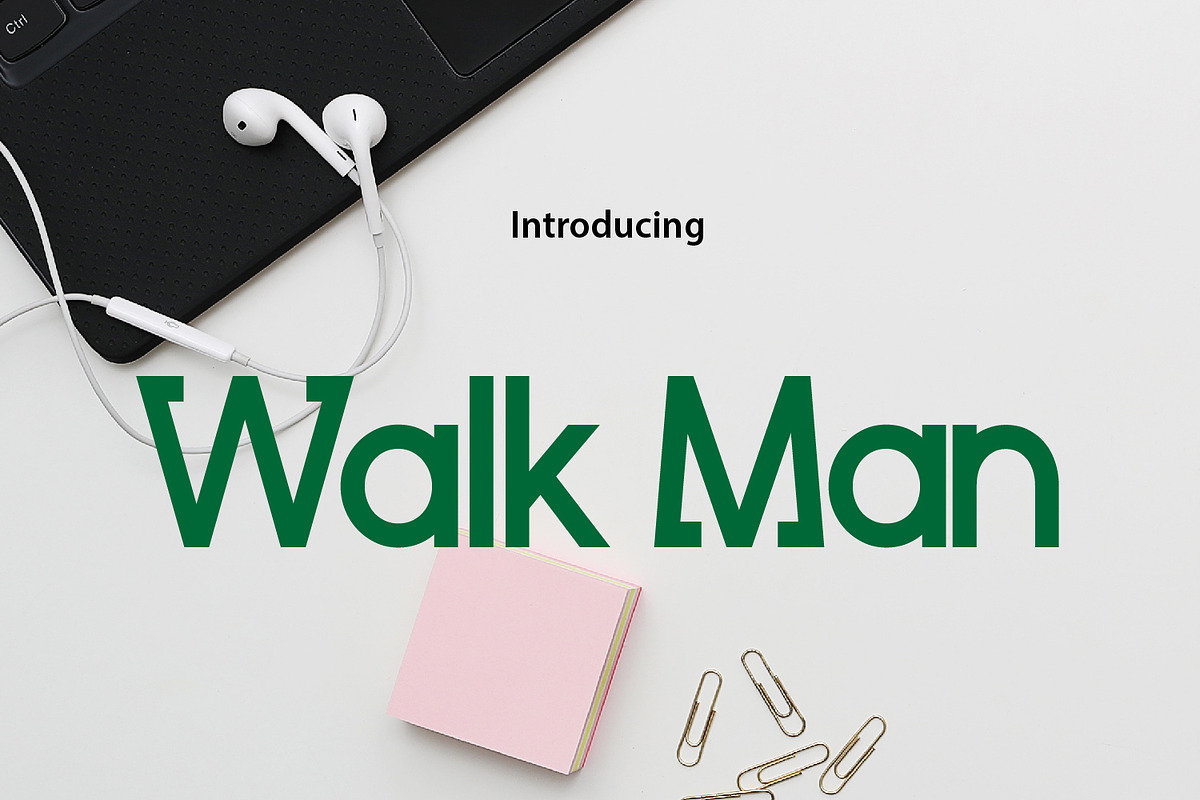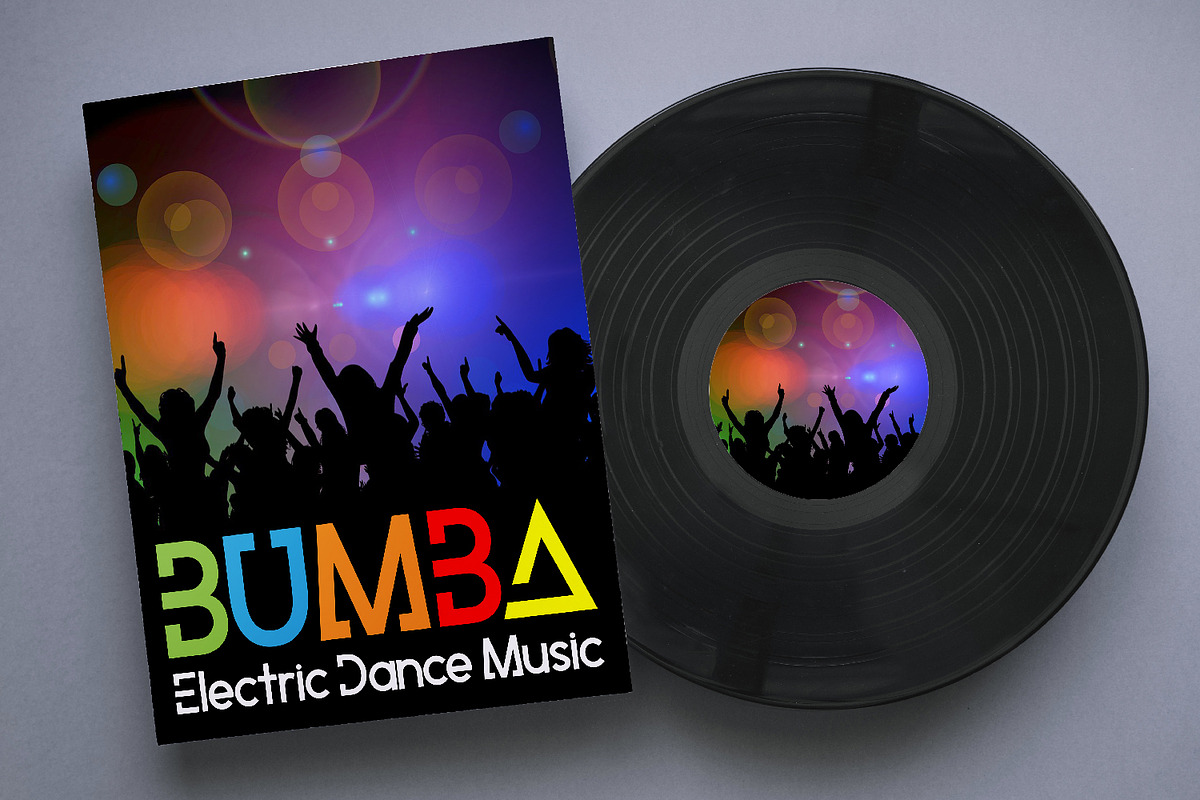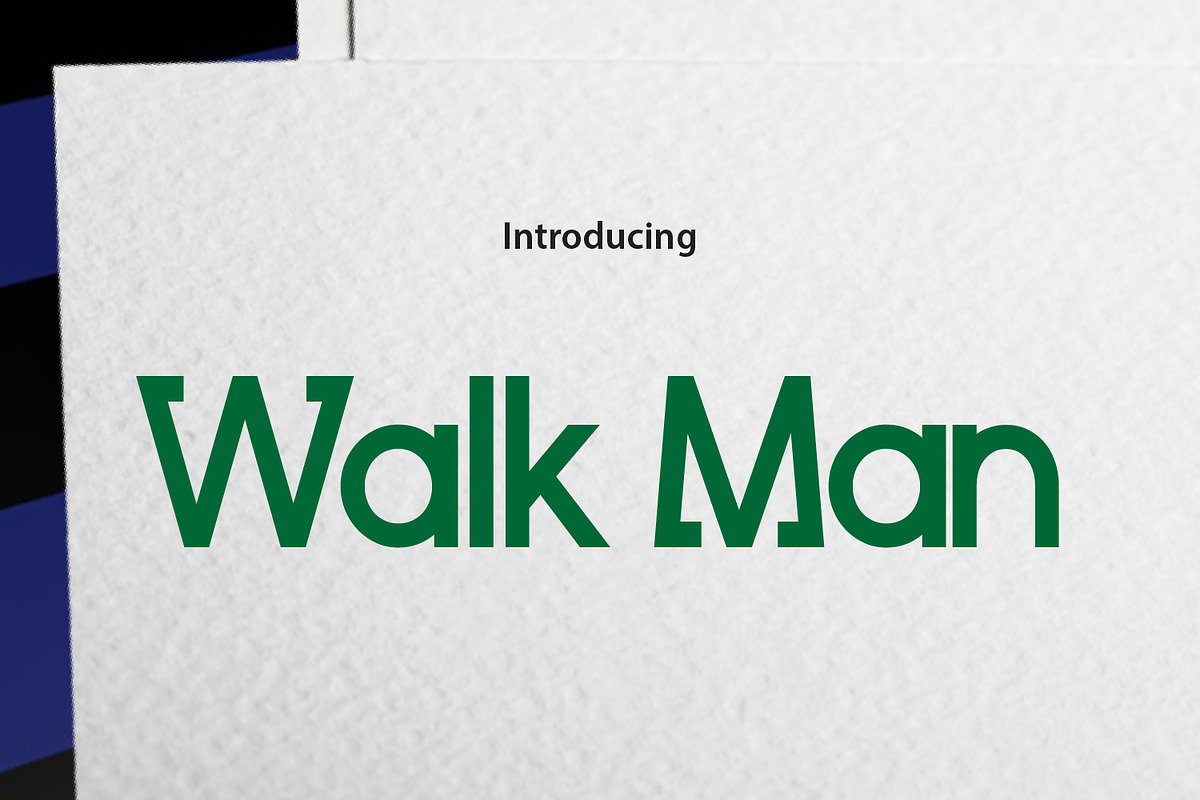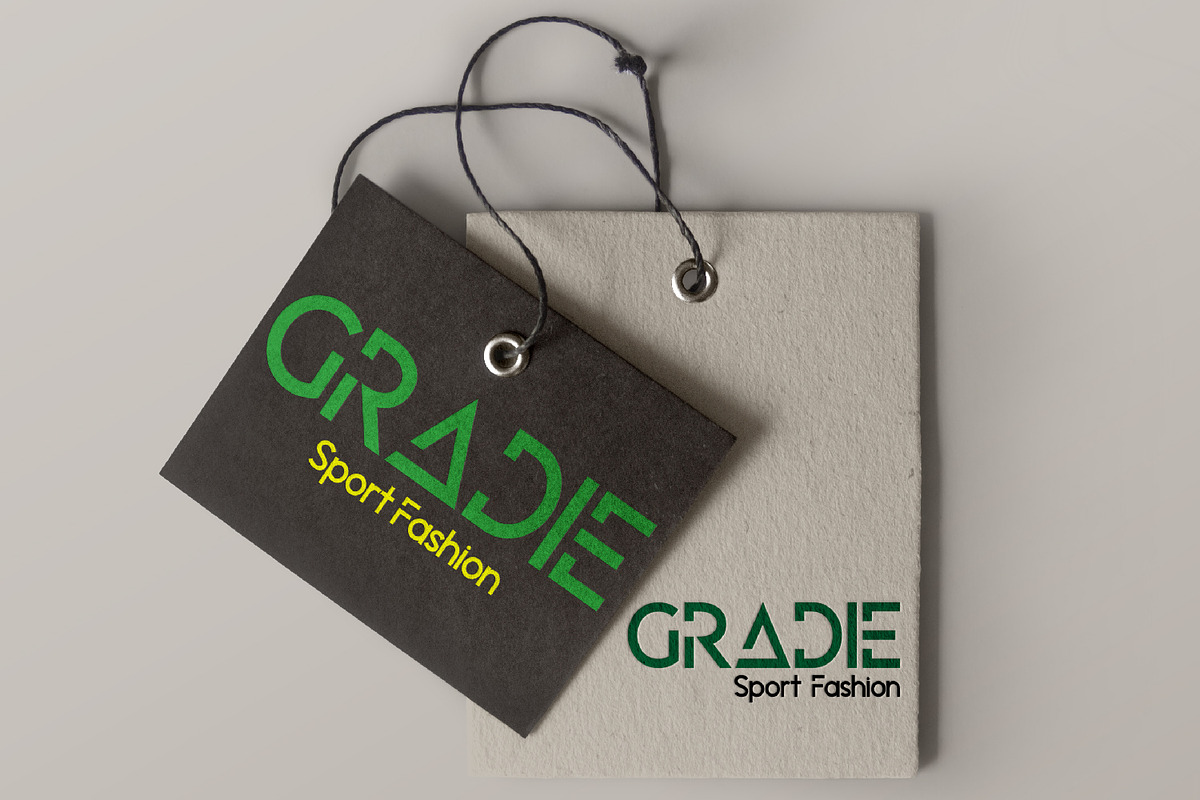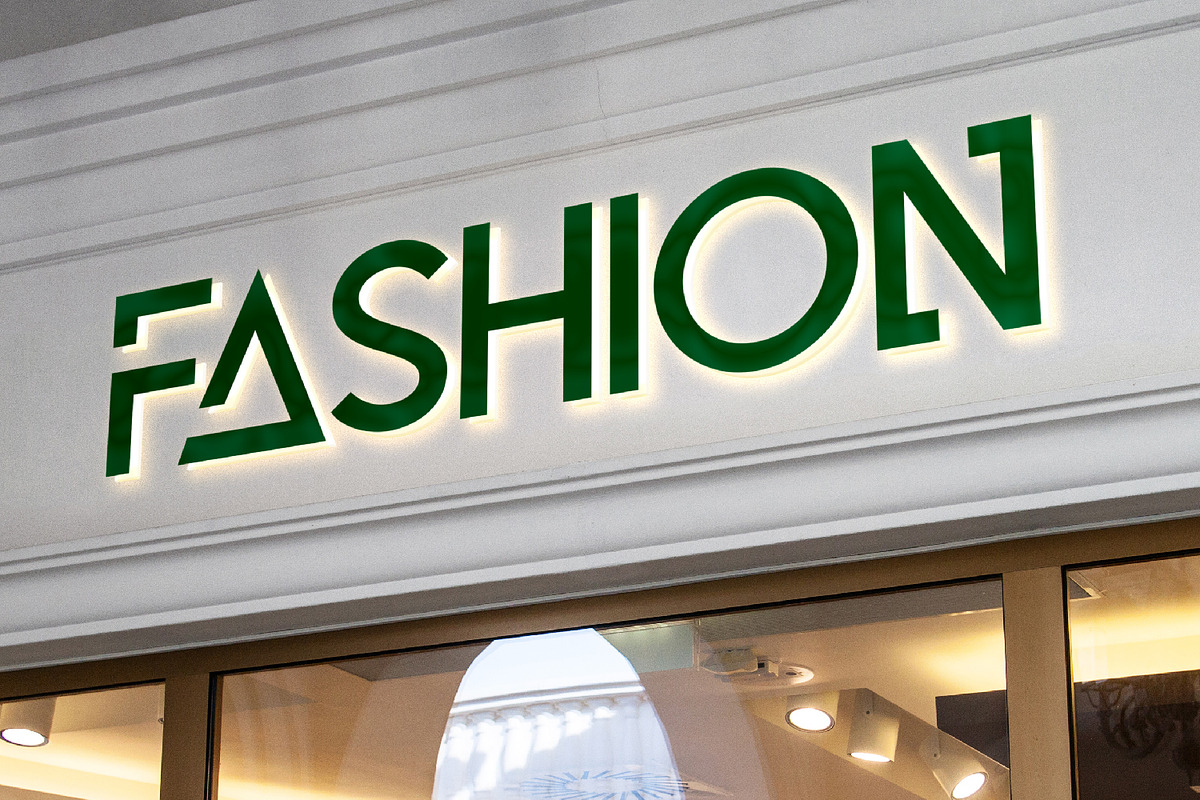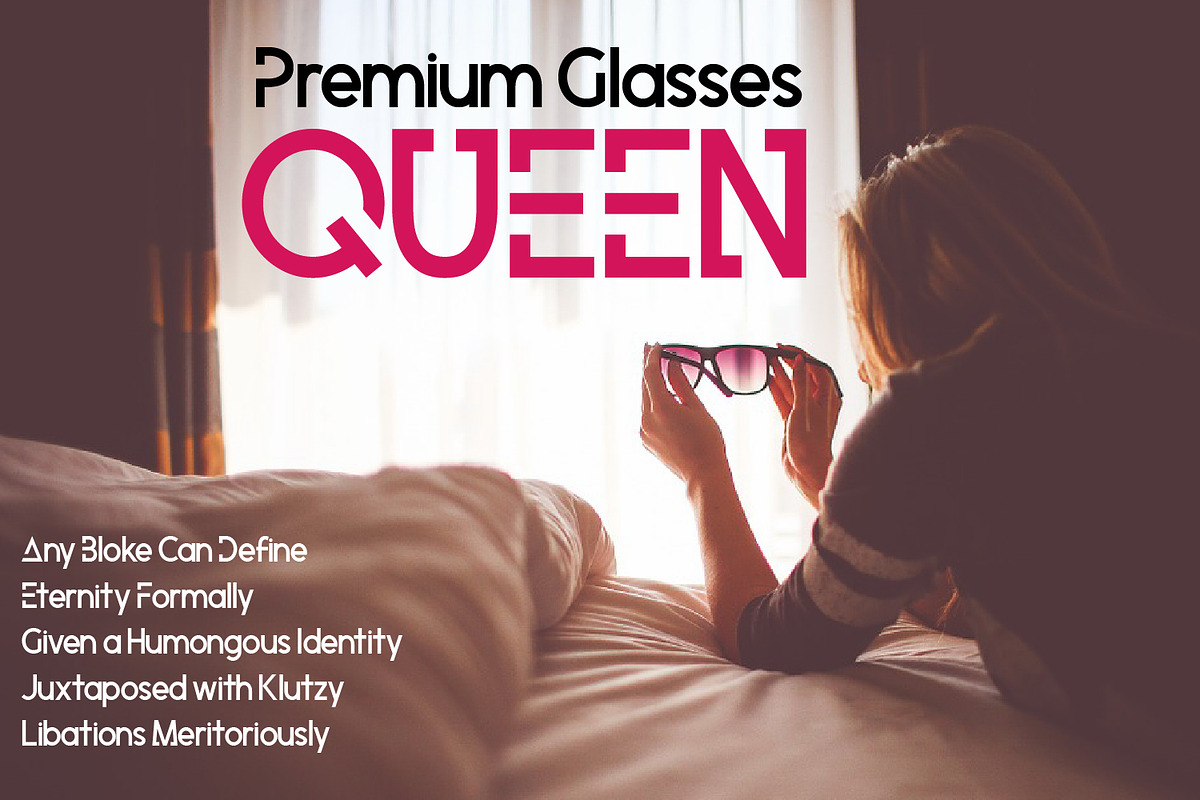
Walk Man
Walk Man is a Luxury, Masculin, Modern and elegant sans-serif typeface, but also suited to retro, this font has been designed to work in various combinations from conservative to funky. Retro, style, Fashionable, Classy, unique and Modern